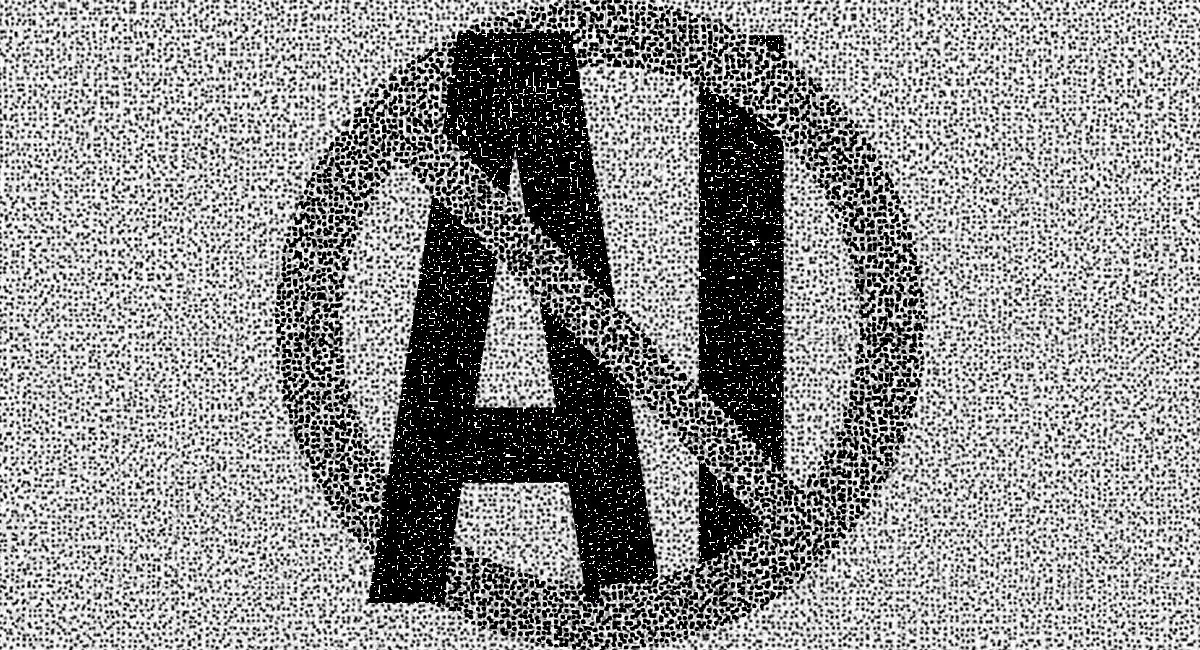
What Is Ghost Font? Why the Viral 'AI-Proof Font' Doesn't Actually Fool AI
Ghost Font isn't truly AI-proof. The viral typography experiment exploits a current limitation in some AI vision systems, but researchers say the effect can be overcome.